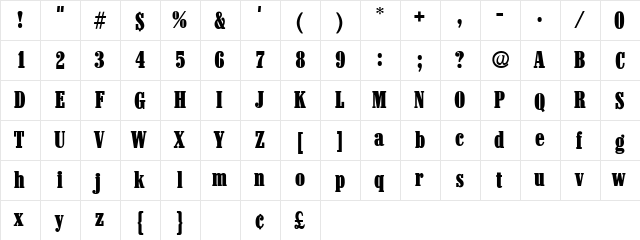
Interese Display SSi Regular
Design Context for Interese Display SSi Typeface
Interese Display SSi brings ornamental detail and strong personality to headlines and identities, where visual impact matters more than quiet functionality.
Font Pairing: Pair with a clean neutral sans-serif for body copy to let Interese Display SSi's character lead without overwhelming the composition.
Pro Tip: Treat Interese Display SSi as the centrepiece of your typographic hierarchy. One strong heading set in a decorative face can carry an entire layout.